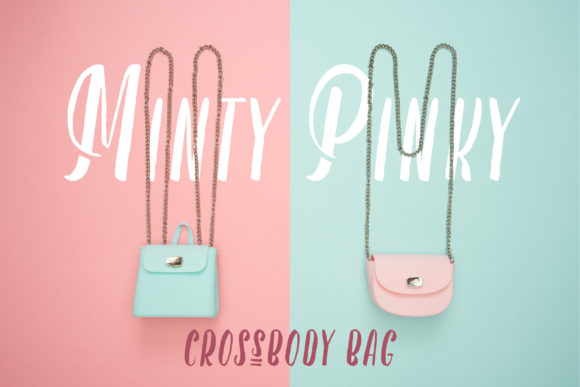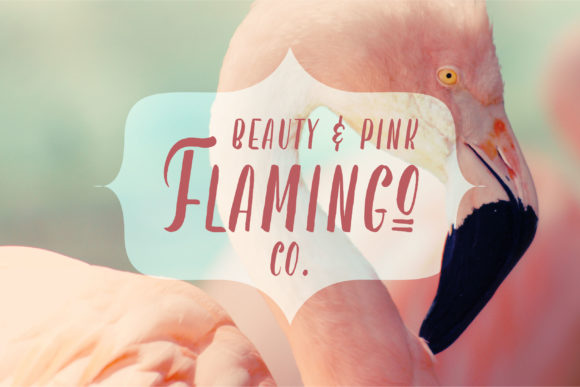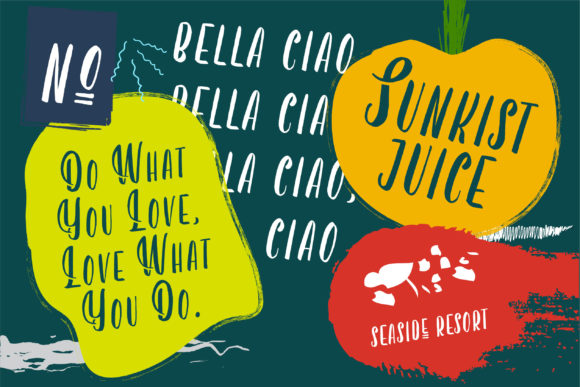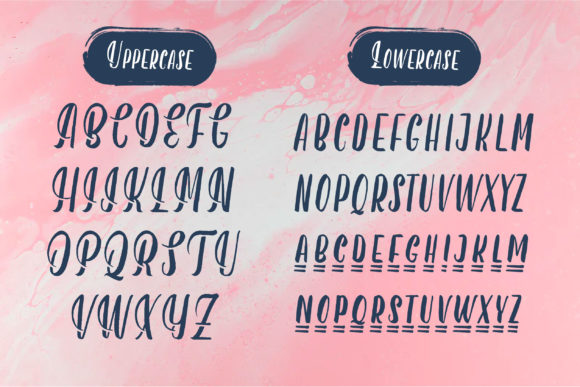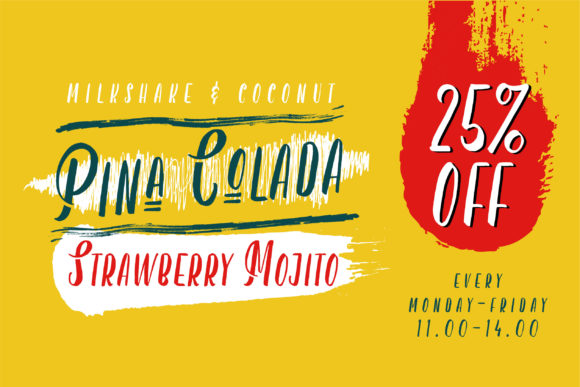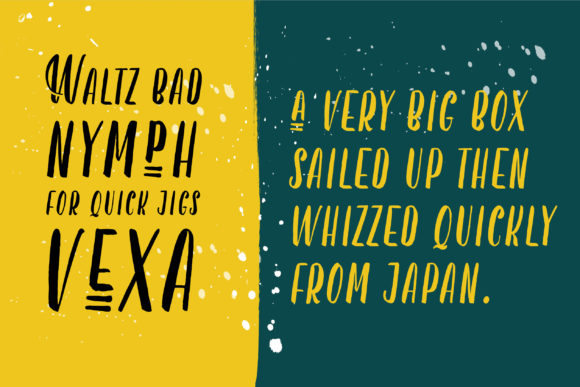
Have you ever stared at a blank page, struggling to find the perfect font to bring your idea to life? We’ve all been there. The blank page stares back, taunting you with its emptiness. But what if you could find a font that not only adds personality to your work but also makes it stand out from the crowd?
Meet the Berryspickers Font, an All Caps handwritten font that’s been carefully handcrafted to become a true favorite among designers. Its casual charm makes it appear wonderfully down-to-earth, readable, and incredibly versatile. Whether you’re working on a busy background or as a standalone headline, Berryspickers Font will look outstanding in any context.
Berryspickers Font Key Features
- Font Family: Berryspickers, a unique and hand-drawn script font designed to evoke a sense of whimsy and elegance.
- Unique Characteristics: Berryspickers features a unique blend of handwritten and calligraphic elements, making it perfect for designs that require a touch of personality and charm.
Berryspickers Font Review
Overall, I’m really impressed with the Berryspickers font. ✨ Its playful and whimsical feel makes it perfect for projects that need a touch of fun and personality. The font is highly customizable, allowing users to adjust the weight, width, and even the individual letterforms to suit their design needs.
The font’s unique characteristics, such as its quirky letter spacing and subtle texture, add an extra layer of depth and visual interest to any design. ✨ I’ve found it particularly useful for branding and marketing materials, where a distinctive and memorable visual identity is key.
- Playful and whimsical feel
- Unique characteristics, such as quirky letter spacing and subtle texture
- Perfect for branding and marketing materials
- May not be suitable for formal or traditional designs
- Some users may find the font’s quirks and irregularities distracting
- Limited language support (not all languages are supported)
- Can be challenging to read at small font sizes
- ⚠️ May require additional font processing or optimization for certain applications
Overall, I’d recommend the Berryspickers font to designers who want to add a touch of personality and whimsy to their projects. With its unique characteristics and high level of customization, it’s a great choice for branding and marketing materials. However, it may not be the best fit for more formal or traditional designs.
Tip: Use Berryspickers Font for creating eye-catching social media posts and presentations.
Tip: Use Berryspickers Font for creating unique and personalized graphics and illustrations.
Tip: Use Berryspickers Font for creating engaging presentations and documents.
Berryspickers Font is ideal for:
- Outdoor and adventure marketing
- Whimsical and playful designs
Remember to always use the font consistently throughout your design to maintain a cohesive look and feel.